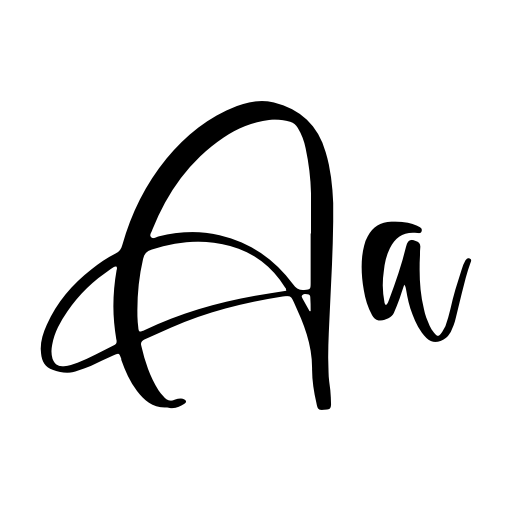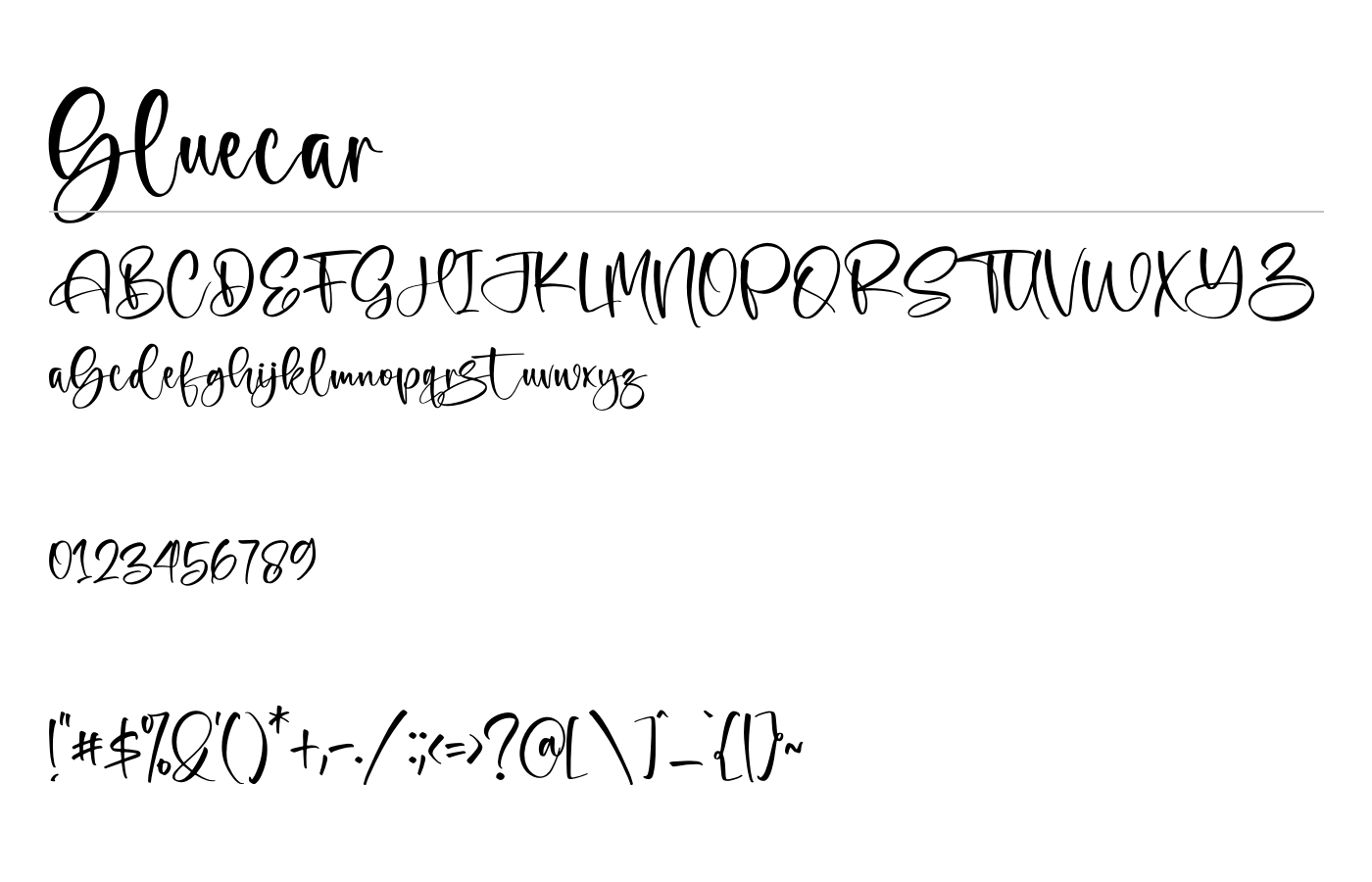
Bluecar is a lively script font with a casual, hand-drawn feel, featuring playful and flowing letterforms that combine elegance with approachability. Its slender strokes and charming loops make it perfect for creative branding, invitations, and editorial designs seeking a personal, artistic touch. This font works well wherever a warm, expressive style is needed to connect in a friendly and stylish way.
About bluecar Font